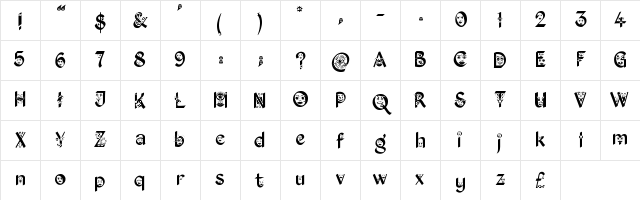
Kingthings Facetype Regular Free Font
Kingthings Facetype Regular
Designer: Kevin King July 2007
Design Context for Kingthings Facetype
Kingthings Facetype is a composed and adaptable typeface that performs quietly and consistently across a wide range of design contexts. Its slender proportions lend an understated elegance to any composition.